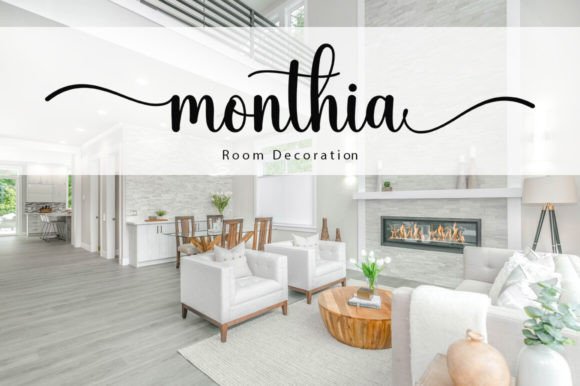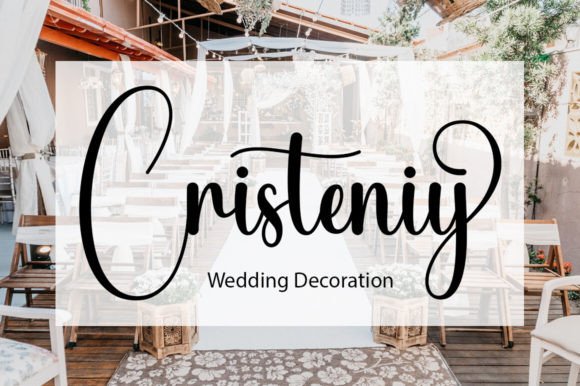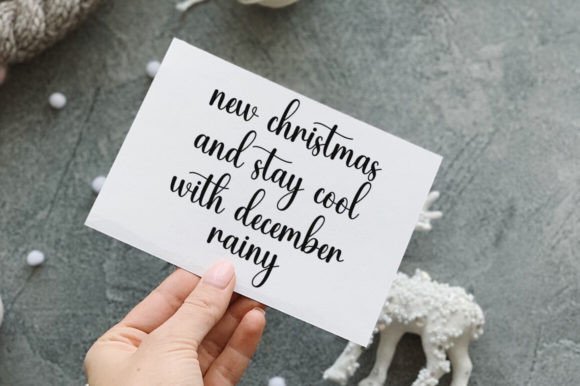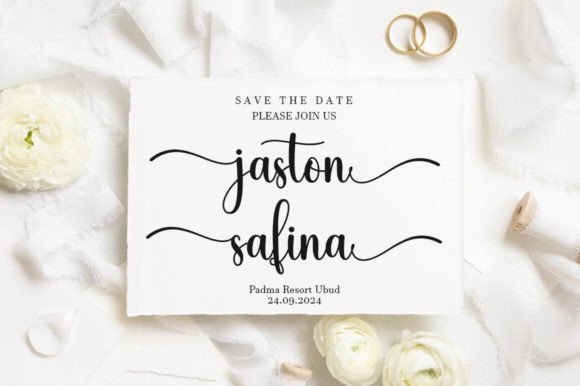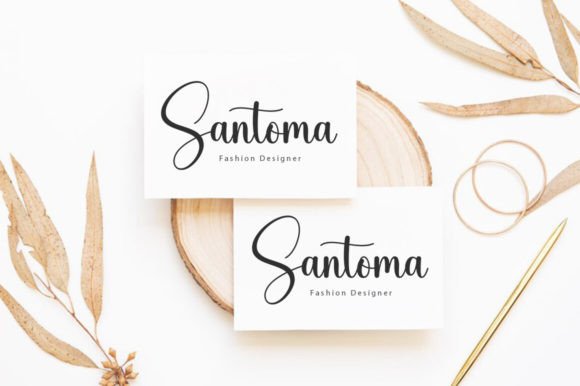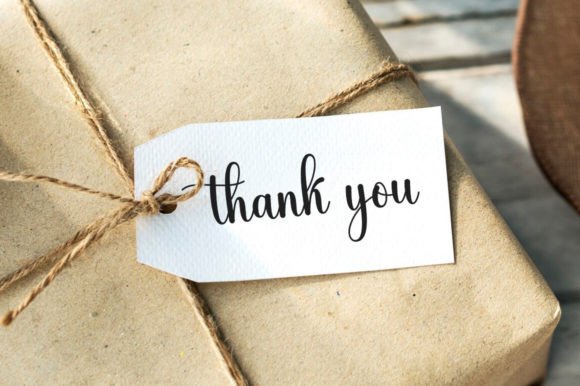
The Magical World of Bintang Font: A Designer’s Delight
I’ll never forget the time I was working on a project for a client’s wedding invitation. I had all the design elements in place – the beautiful floral patterns, the elegant layout, and the perfect color palette. But something was missing. That’s when I realized I needed the perfect font to tie everything together. After hours of browsing through font libraries, I stumbled upon Bintang Font, and it was love at first sight! 💕
Bintang is an enchanting handwritten font that has a wide spectrum of applications, ranging from greeting cards to headlines. Its versatility and romantic feel make it an excellent addition to any design project. In this article, I’ll share my experience with Bintang Font, its features, and how to make the most of it in your designs.
An Honest Review of Bintang Font
What I Love About Bintang Font ✨
- 💫 Romantic and Whimsical Feel: Bintang Font has a unique, enchanting quality that adds a touch of romance to any design.
- ✅ PUA Encoded: The font is PUA encoded, making it easy to access all the amazing glyphs and ligatures.
- 🎨 Versatile: Bintang Font can be used for a wide range of projects, from greeting cards to headlines, and even social media graphics.
- ⚠️ Limited Use for Body Text: While Bintang Font is perfect for headlines and titles, it may not be the best choice for body text due to its cursive nature.
- ⚠️ Some Ligatures May Not Display Properly: Depending on the software or platform used, some ligatures may not display properly, requiring manual adjustment.
The Story Behind Bintang Font
Bintang Font was designed with the intention of creating a beautiful, handwritten font that captures the essence of romance and whimsy. Inspired by traditional calligraphy and modern script fonts, Bintang Font is the perfect blend of classic and contemporary design. Whether you’re a designer, crafter, or creative hobbyist, Bintang Font is sure to become a favorite in your font collection.
Q: What is PUA encoding, and how does it benefit Bintang Font?
A: PUA (Private Use Area) encoding allows font designers to include additional glyphs and characters that aren’t part of the standard Unicode range. For Bintang Font, this means you get access to a wide range of ligatures and glyphs, making it easier to create beautiful, unique designs.